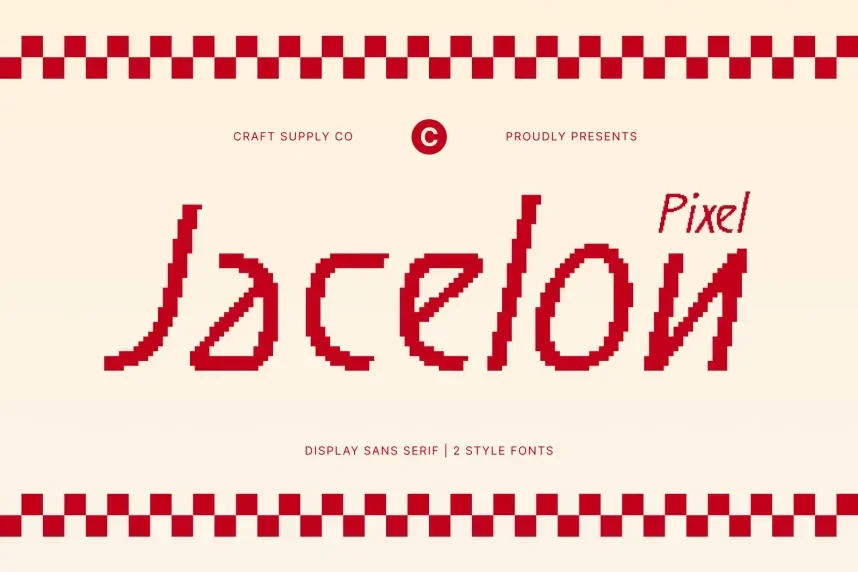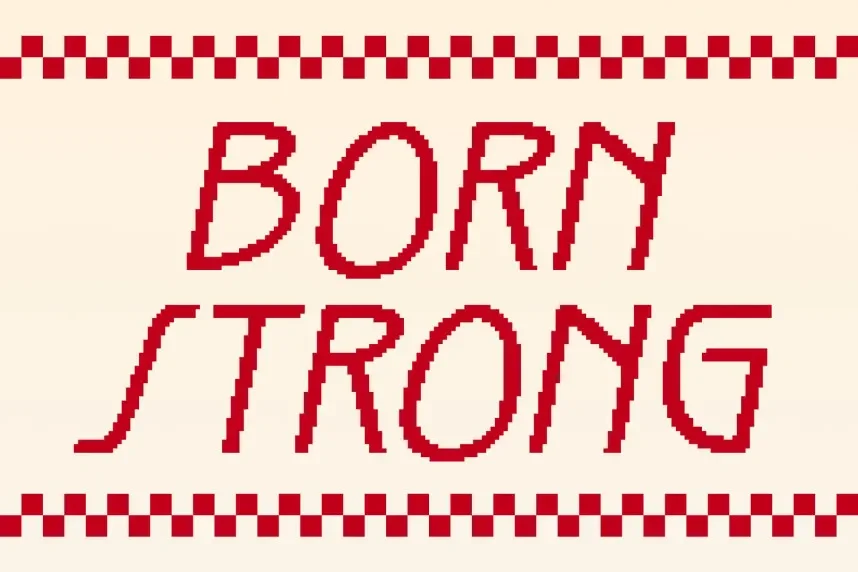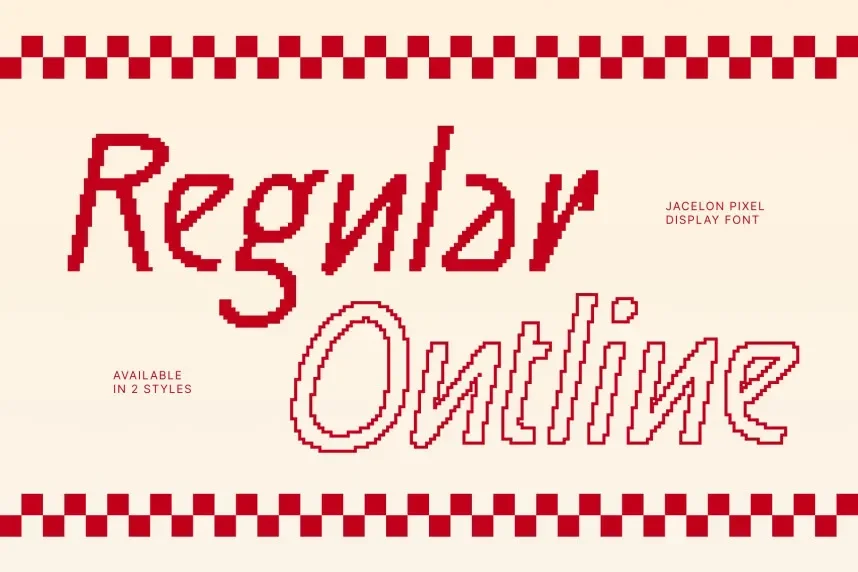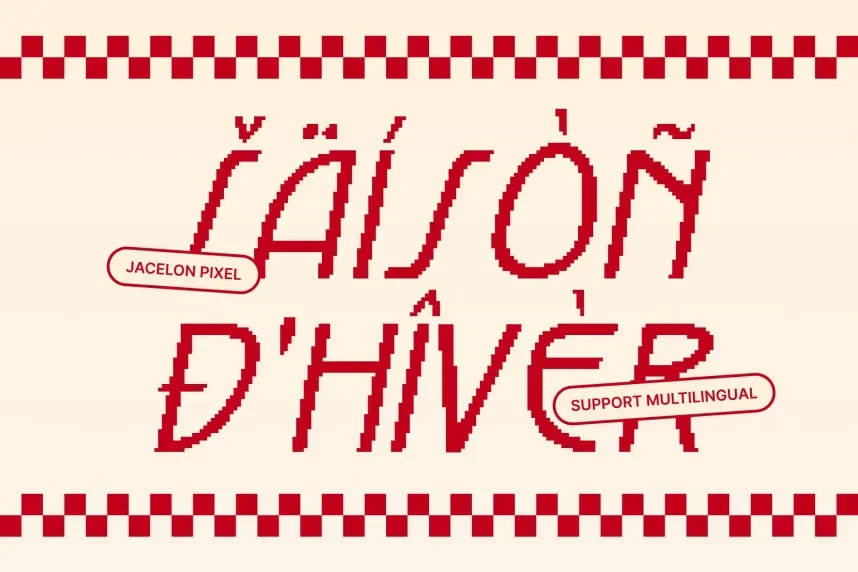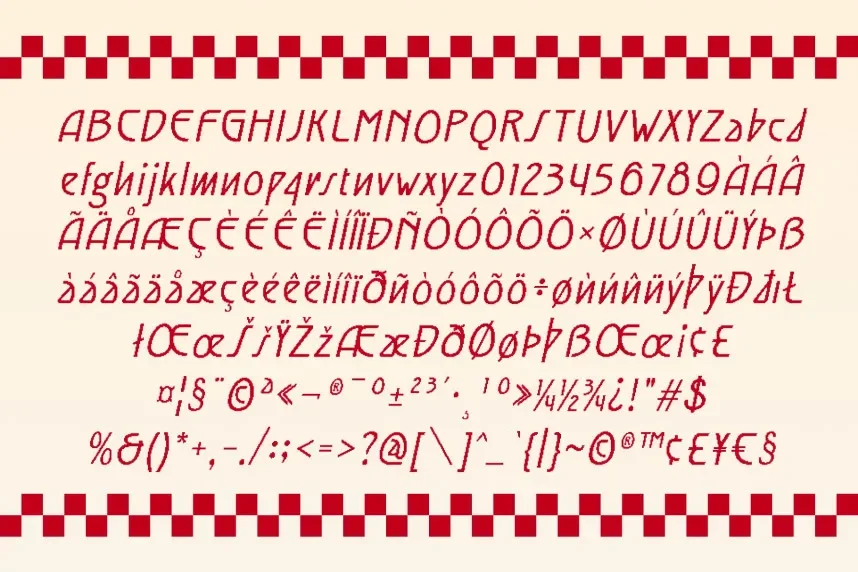
Jacelon Pixel Font is a modern pixel-based typeface designed for digital projects that require a clean, blocky style. Its pixelated structure is ideal for tech-related branding, app interfaces, and website design where clarity and legibility are crucial.
Best used for logos, gaming interfaces, and website headers, Jacelon Pixel Font pairs well with simple sans-serif fonts for body copy. Available in TTF and OTF formats, it includes a commercial-use license. Be sure to check the license for commercial projects.